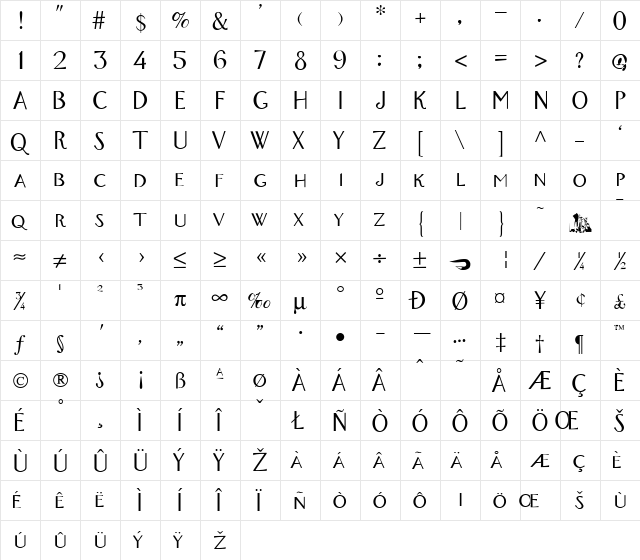
Orlando Normal
Design Context for Orlando Typeface
Orlando offers clean, dependable letterforms without strong stylistic allegiance, making it a practical choice for designers who need flexibility.